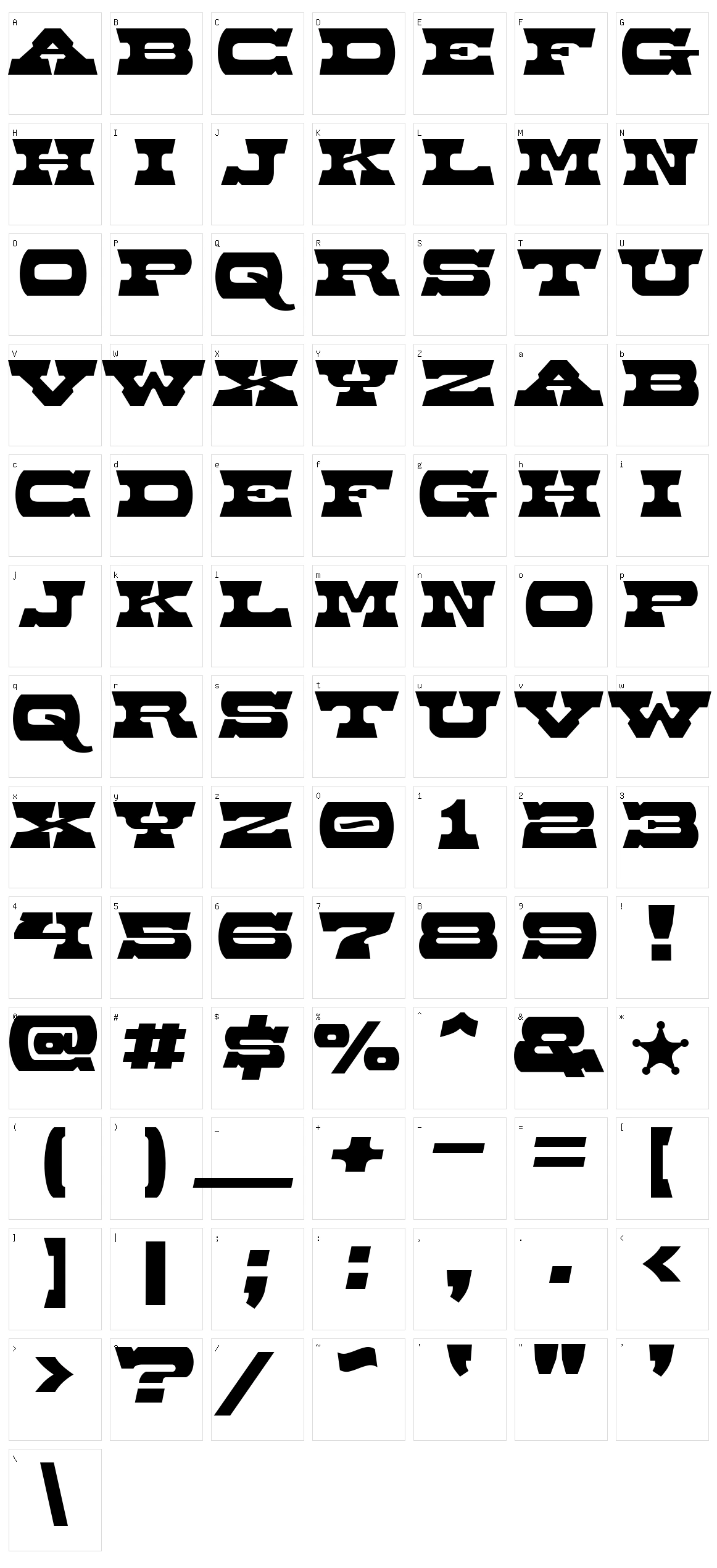
Baccer
Designed by: Mike Maynard
Category: Western
Description: "Baccer" (pronounced /ÈbakYr/) is a western woodcut-type font loosely based on the logo of a long-leaf tobacco pouch.
My great grandfather used to ask me "want some 'baccer'" which was of course, a colloquial pronunciation of the word tobacco.